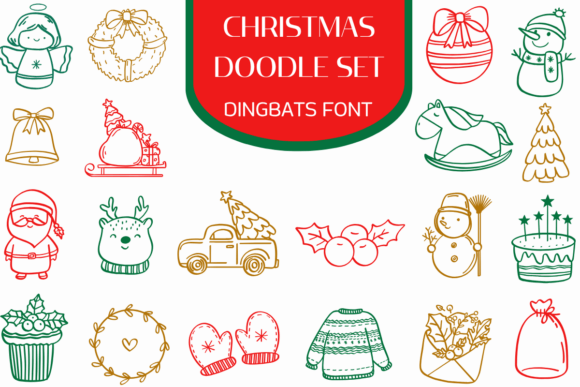
Christmas Doodle Set Font: Add a Festive Touch to Your Designs
The holiday season is upon us, and what better way to get into the spirit than with a festive font that brings charm and cheer to your design projects? Look no further than the Christmas Doodle Set Font, a delightful dingbat font filled with hand-drawn holiday-themed illustrations. In this article, we’ll dive into the details of this wonderful font and explore how it can add a playful, cozy touch to your designs.
What is Christmas Doodle Set Font?
Christmas Doodle Set is a unique font that features a variety of hand-drawn icons, including Santa Claus, reindeer, ornaments, gifts, mittens, snowmen, and many more. This festive font is designed to bring a touch of seasonal joy to your designs, whether you’re creating greeting cards, gift tags, holiday banners, planner stickers, social media posts, or party decor.
Key Features of Christmas Doodle Set Font
- Hand-drawn illustrations: Each doodle in the Christmas Doodle Set Font is carefully crafted with love and attention to detail, giving your designs a personal and handcrafted feel.
- Variety of icons: The font includes a wide range of holiday-themed illustrations, from classic Christmas characters to winter wonderland scenes.
- Easy to use: Each doodle is mapped to a keyboard character, making it simple to use in any program that supports fonts.
- Versatile: The Christmas Doodle Set Font is perfect for both print and digital designs, allowing you to use it across a range of projects.
- Mix and match: Combine different doodles to create a unique and eye-catching design.
- Experiment with colors: Try out different color schemes to match your brand or project’s aesthetic.
- Add texture: Use the font to add a touch of texture and whimsy to your designs.
- Keep it simple: Don’t be afraid to use just one or two doodles to add a subtle touch of festive cheer to your design.
Ideas for Using Christmas Doodle Set Font
The possibilities are endless when it comes to using the Christmas Doodle Set Font. Here are a few ideas to get you started:
Holiday Projects
- Greeting cards: Create personalized holiday cards for friends and family.
- Gift tags: Add a festive touch to gifts with custom tags featuring the Christmas Doodle Set Font.
- Holiday banners: Create eye-catching banners for parties, events, or social media promotions.
Digital Projects
- Social media posts: Add a touch of festive cheer to your social media posts with custom graphics featuring the Christmas Doodle Set Font.
- Planner stickers: Create custom stickers for your planner or bullet journal using the font.
- Party decor: Design custom party decor, such as invitations, banners, or table runners, featuring the Christmas Doodle Set Font.
Why Choose Christmas Doodle Set Font?
With so many fonts available, why choose the Christmas Doodle Set Font? Here are just a few reasons:
Unique and Festive
The Christmas Doodle Set Font is a one-of-a-kind font that adds a touch of festive cheer to any design. Its unique illustrations and hand-drawn feel make it stand out from more traditional fonts.
Easy to Use
The font is incredibly easy to use, with each doodle mapped to a keyboard character. This makes it simple to incorporate into any design project, regardless of your level of design experience.
Versatile
The Christmas Doodle Set Font is perfect for both print and digital designs, making it a versatile addition to your font collection.
The Christmas Doodle Set Font is a delightful and festive font that brings a touch of seasonal cheer to any design project. With its hand-drawn illustrations, ease of use, and versatility, it’s the perfect addition to your font collection. Whether you’re designing holiday greeting cards, gift tags, or social media posts, this font is sure to bring a smile to your face and a touch of magic to your designs.